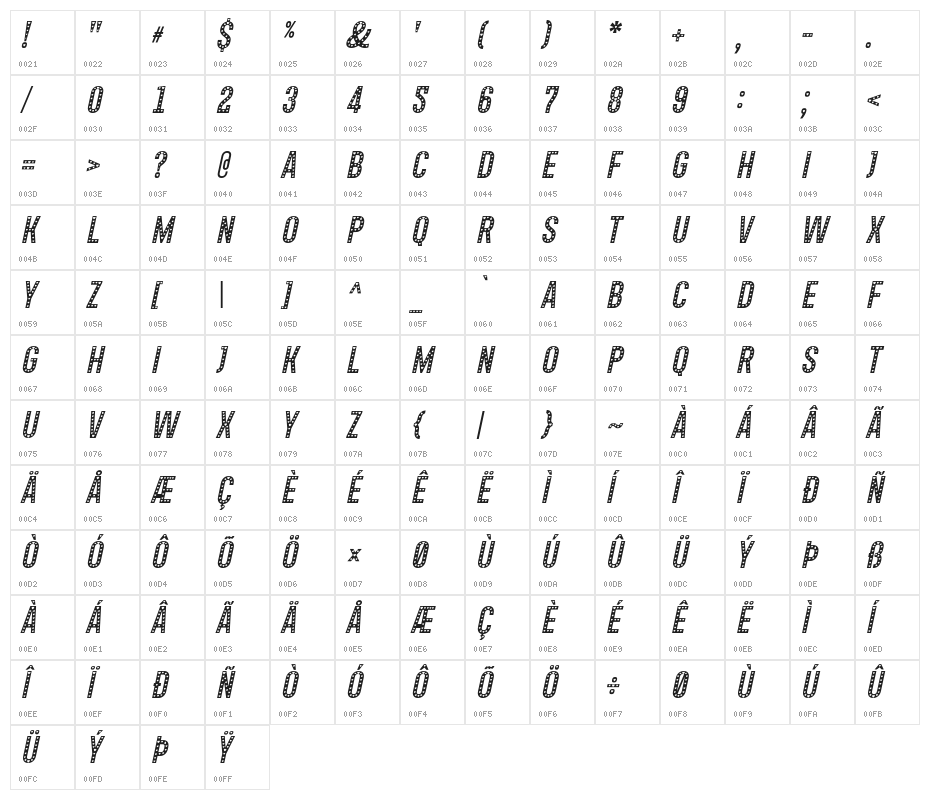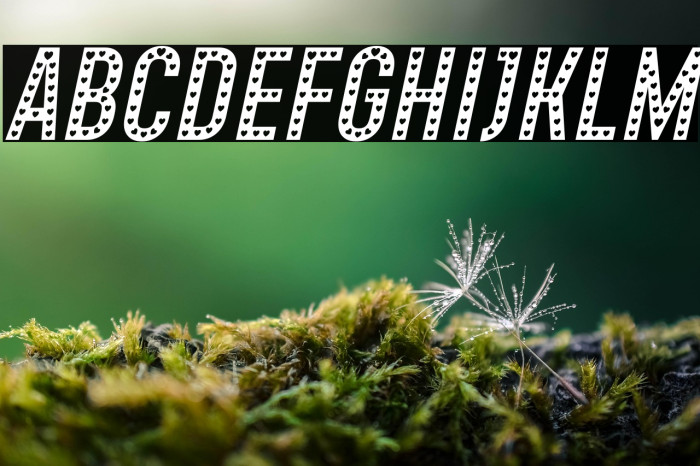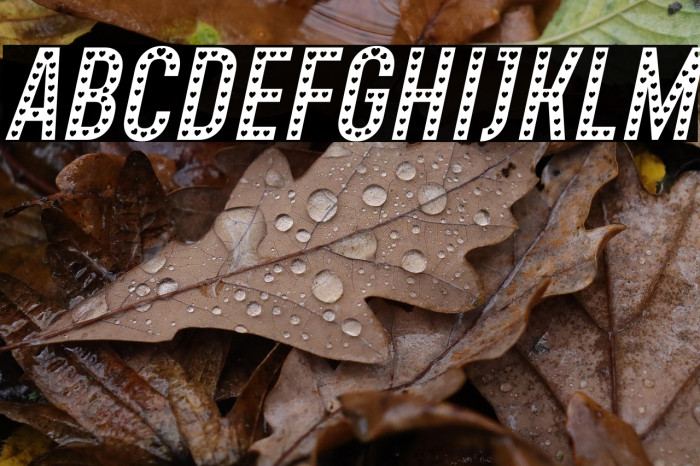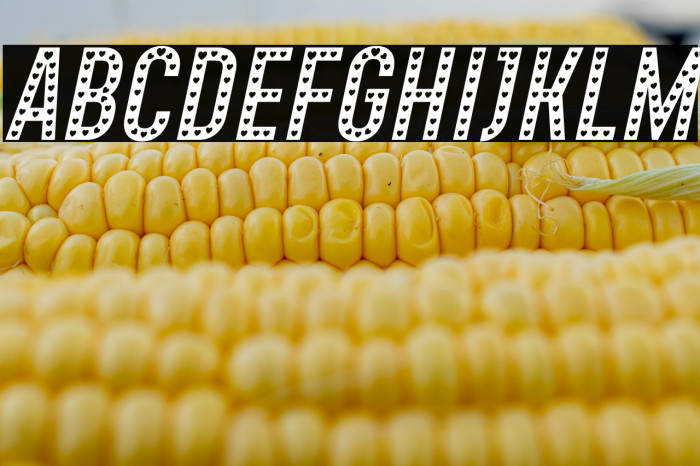
Xhers Alove Italic Font
Xhers Alove Italic Description
This font features a bold, italicized style with a distinctive decorative pattern. Each character is adorned with small, evenly spaced dots that create a playful and eye-catching effect. The letters are slightly slanted, adding a dynamic and energetic feel to the text. The font maintains a consistent thickness throughout, ensuring readability while still offering a unique visual appeal. Its bold presence makes it suitable for attention-grabbing headlines or creative projects that require a touch of whimsy.
| Proposed Projects | Ideal for posters, event invitations, playful branding, or any design needing a fun and lively typeface. |